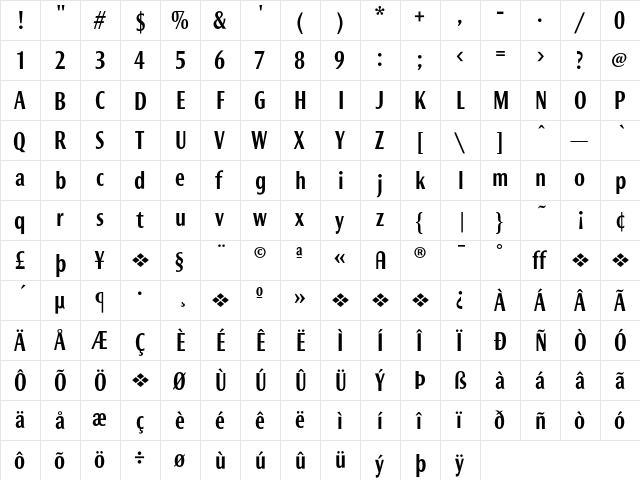
BureauRoxyMedium Regular
Design Context for BureauRoxyMedium Typeface
BureauRoxyMedium takes a measured approach to typography — its balanced proportions and neutral character make it a reliable workhorse for both digital and print work.